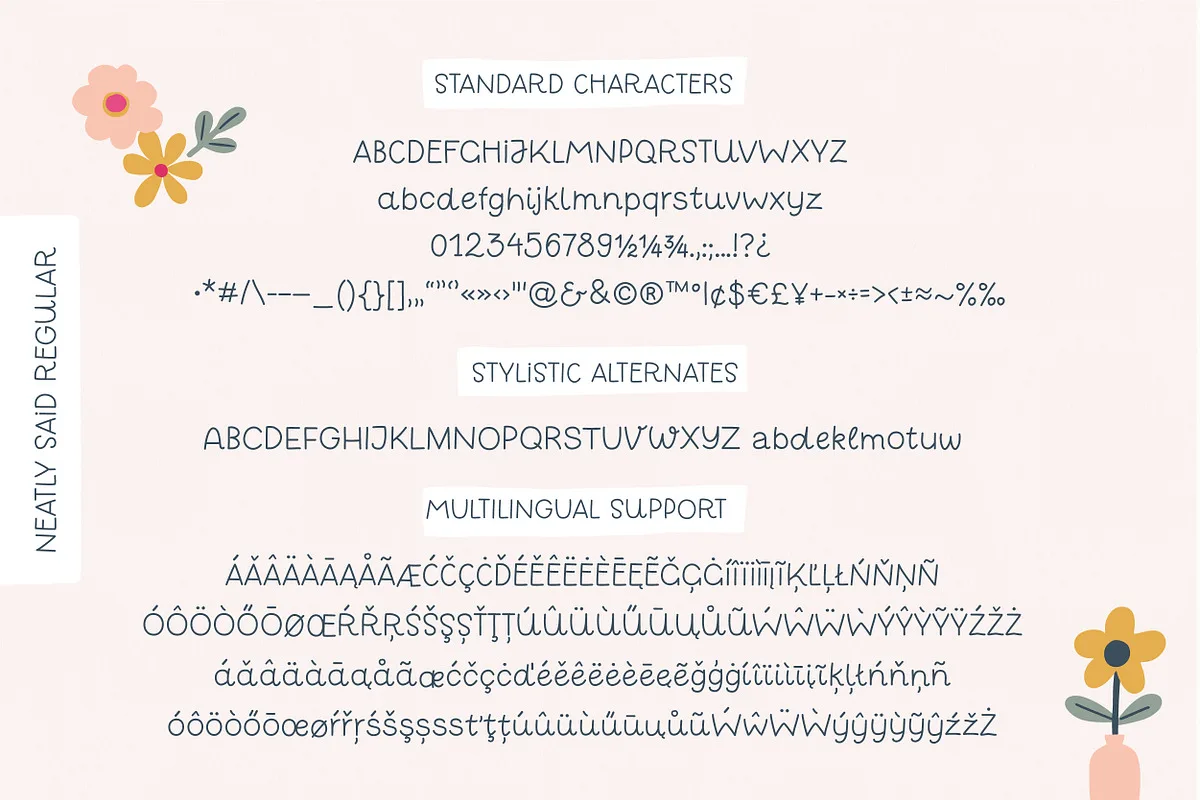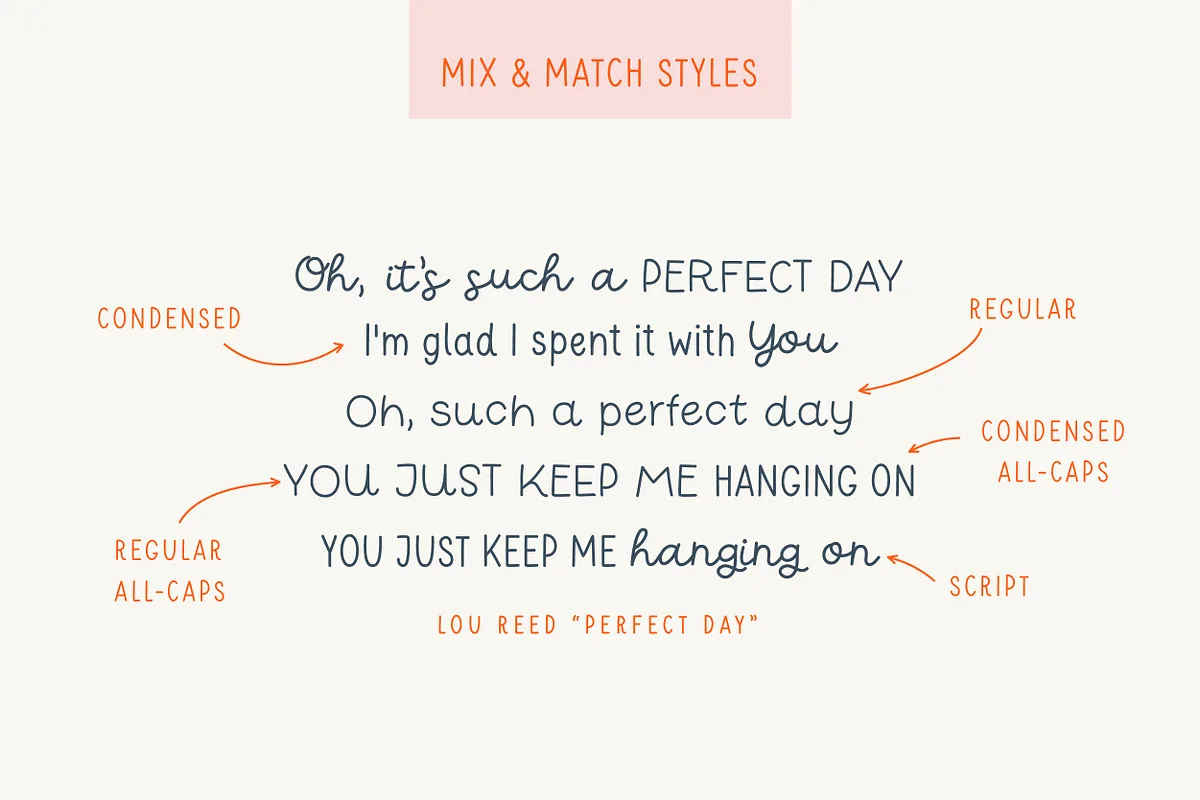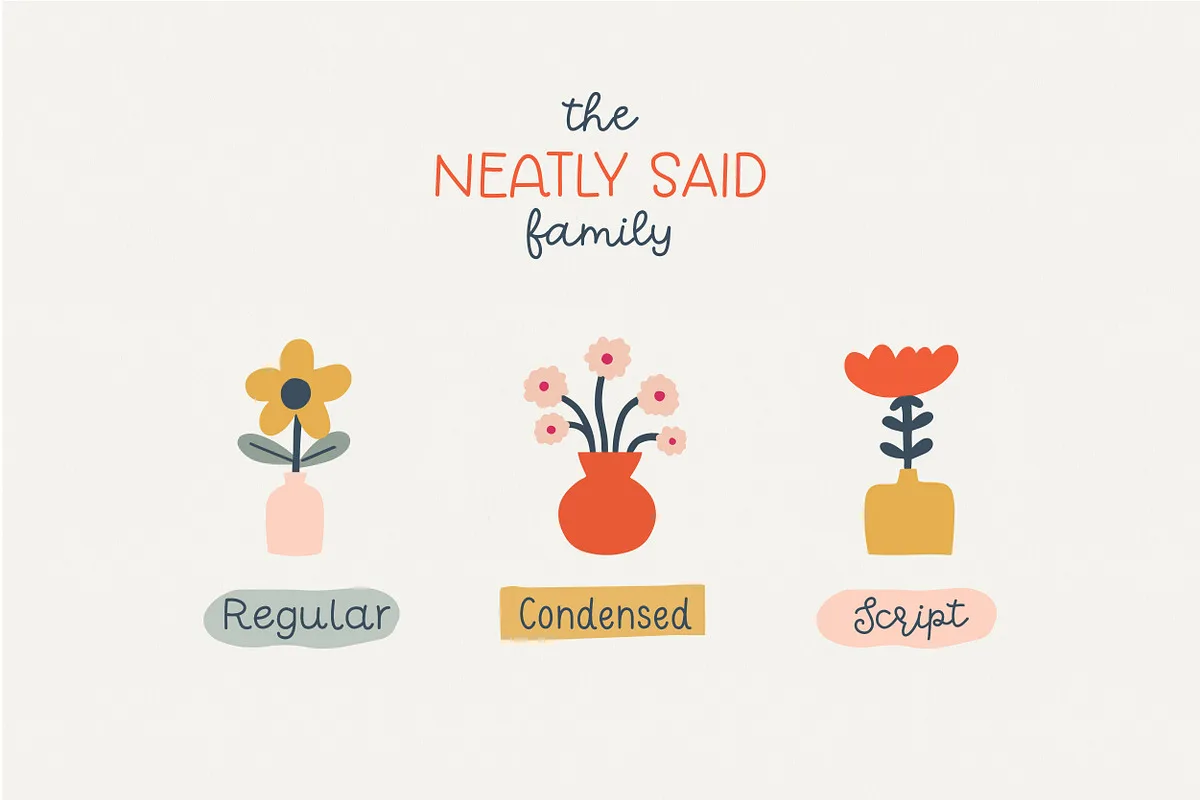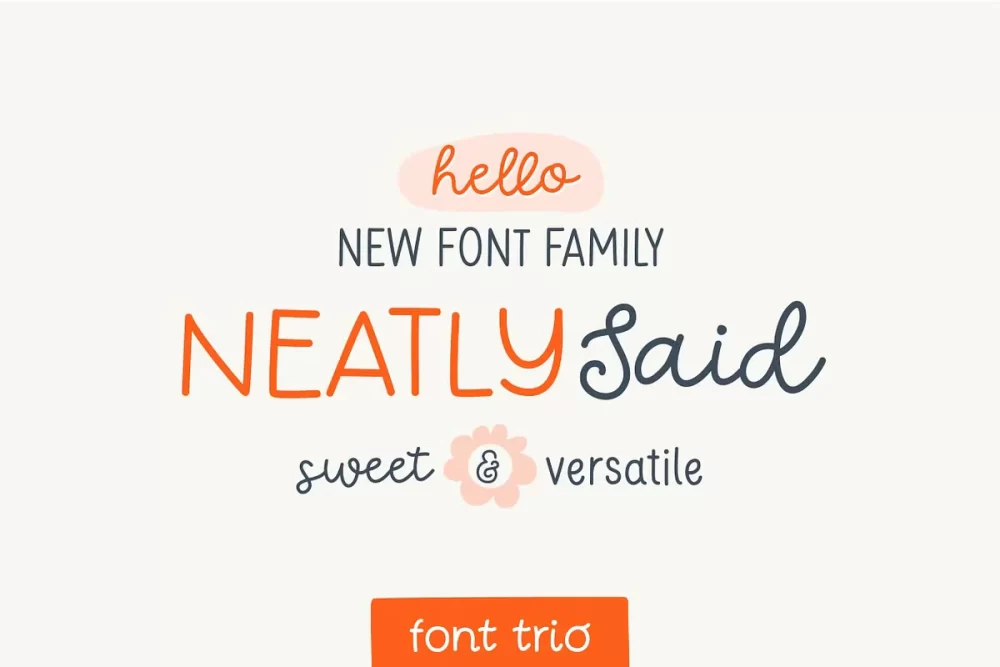
Introducing Neatly Said – sweet & versatile font family. Packed with hand-drawn letters, charming illustrations, stylistic alternatives, and ligatures.
Perfect for writing out uplifting quotes for instagram posts, wall art or greeting cards. It will also be there for you if you need to design some charming packaging or branding.
Suitable for short and sweet quotes, as well as longer meaningful paragraphs. Designed and kerned with care and love to make using it a breeze.
- many stylistic alternates for uppercase and lowercase
- ligatures
- multilingual support with accented characters for international designers
- fun and drawn illustrations
Neatly Said — Hand-Drawn Illustrated Font